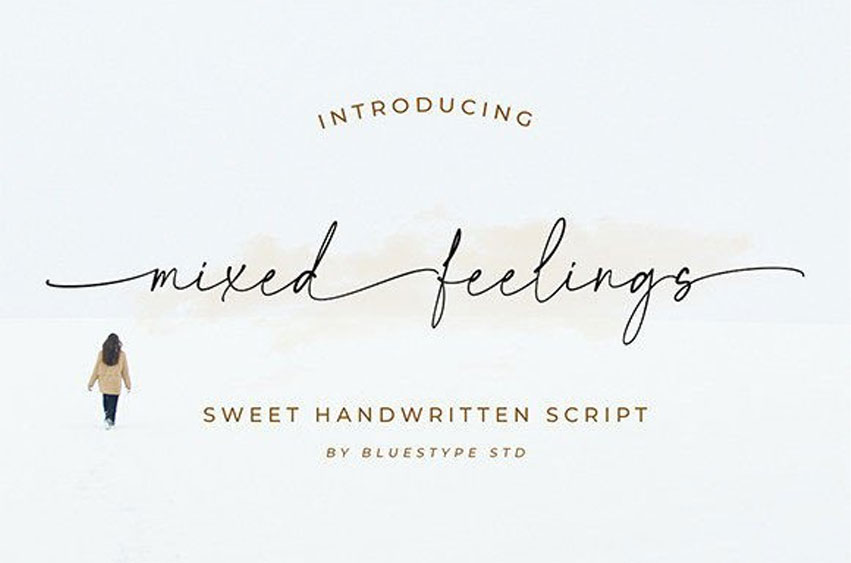
Mixed Feelings Font
Mixed Feelings Font feels equally charming and elegant.
It looks stunning on wedding invitations, thank you cards, quotes, greeting cards, logos, business cards, and every other design which needs a handwritten touch.